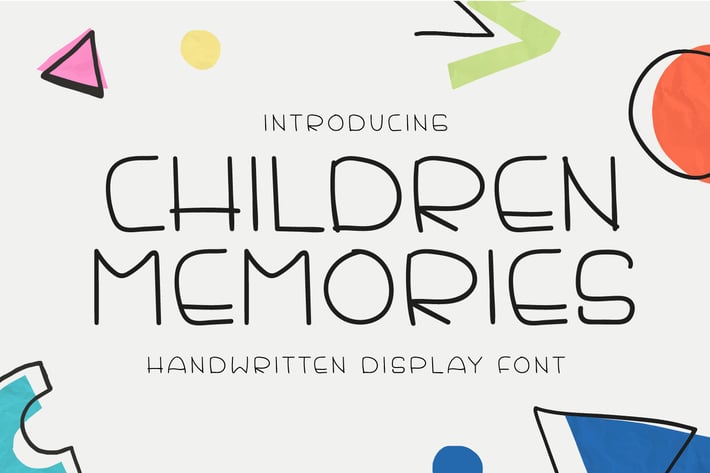
Children Memories - Handwritten Display Font
Introducing Children Memories - Handwritten Display Font
Children Memories is a handwritten and cute display font that fits perfectly into anything. Its casual charm makes it look very down-to-earth, easy to read, and, in the end, very versatile. Add this beautiful display font to your every creative idea.
This font is perfect for quotes, shirt designs, websites, branding, children’s designs, blogs, logos, invitations, and more!